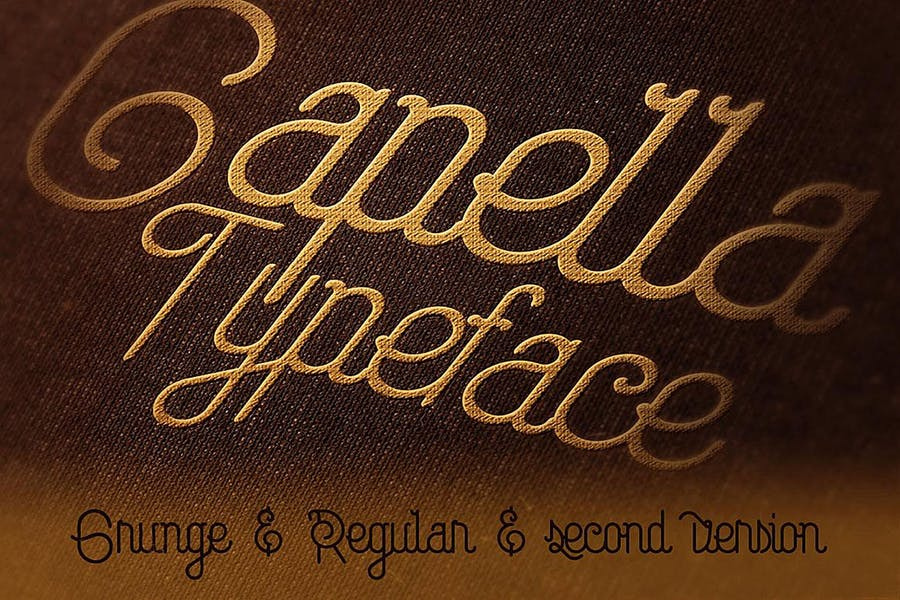
Capella Typeface Font
Capella Typeface Font is perfect for classical music branding, choir performance marketing, opera house signage, celestial observatory communications, luxury hospitality advertising, sophisticated cultural events, elegant concert programs, and refined artistic presentations.
What makes Capella Typeface Font exciting is its celestial harmony that embodies the luminous beauty and transcendent elegance of stellar magnificence with classical sophistication and musical artistry. The font features graceful letterforms with stellar proportions and harmonious character that evoke constellation maps, cathedral acoustics, and the sublime brilliance of musical excellence and celestial wonder. Its distinctive stellar styling and harmonious appeal communicate elegance, transcendence, and artistic excellence, making every message feel illuminated by starlight and elevated by the divine harmony of classical music and celestial beauty.
The Capella Typeface Font family includes regular weight with uppercase and lowercase letters, numerals, punctuation marks, and comprehensive special characters. Premium versions often feature multiple weights and celestial alternates that enhance the stellar, harmonious aesthetic perfect for cultural and luxury applications.
The harmonious character of Capella Typeface Font makes it particularly valuable for symphony orchestras, luxury hotels, and cultural centers. Its excellent readability ensures concert information and cultural messaging remain clear while maintaining the distinctive stellar aesthetic that appeals to audiences seeking transcendent artistic experiences and classical sophistication.
Cultural luxury marketers appreciate how Capella Typeface Font effortlessly conveys classical authenticity and celestial elegance. The font's graceful proportions and stellar details create prestigious brand materials that establish connections with audiences who value classical music, artistic transcendence, and the luminous beauty of stellar harmony and cultural sophistication.
The versatile luminosity of this typeface extends to luxury travel, astronomical education, and classical recording labels where celestial authenticity enhances cultural credibility and artistic appeal. Capella Typeface Font Free Download provides creative professionals with an essential tool for developing memorable, harmony-driven designs that resonate with audiences who embrace classical excellence, celestial beauty, and the transcendent luminosity of stellar artistry in their cultural and luxury experiences.